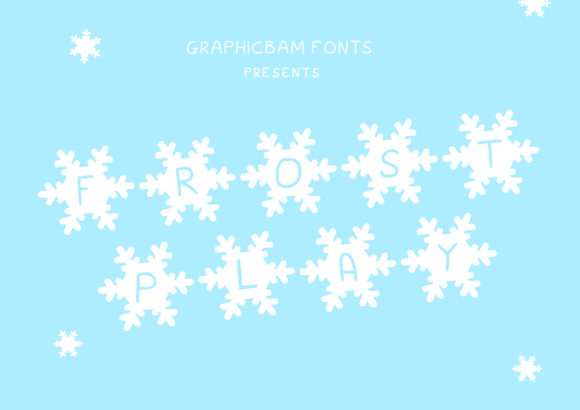
Frost Play Font: Elevate Your Winter Creations with this Stunning Decorative Font
As the winter season approaches, designers and creators are on the lookout for fonts that can add a touch of magic to their projects. If you’re searching for a font that can instantly evoke the feeling of frosty mornings and snowflakes gently falling, look no further than the Frost Play Font. This gorgeous decorative font is specifically designed to match the winter season, and its versatility makes it an incredible asset to your font library, regardless of the topic or project.
What Makes Frost Play Font So Special?
Frost Play Font is a unique and decorative font that boasts a range of features that make it perfect for winter-themed projects. Some of its key features include:
- Winter-inspired design: The font’s design is inspired by the frosty and icy textures of winter, making it perfect for projects that require a seasonal touch.
- Decorative and elegant: Frost Play Font is a decorative font that adds an touch of elegance to any project, making it ideal for use in titles, headings, and other design elements.
- Highly versatile: Despite its winter-inspired design, Frost Play Font is highly versatile and can be used in a wide range of projects, from Christmas cards to winter sports branding.
- Easy to read: Despite its decorative nature, Frost Play Font is easy to read, making it perfect for use in body text as well as headings.
Endless Possibilities: Uses for Frost Play Font
Frost Play Font is an incredibly versatile font that can be used in a wide range of projects, including:
- Winter-themed branding: Use Frost Play Font to create eye-catching branding for winter sports companies, ski resorts, and other businesses that want to evoke the feeling of winter.
- Christmas cards and invitations: Add a touch of festive magic to your Christmas cards and invitations with Frost Play Font.
- Social media graphics: Use Frost Play Font to create eye-catching social media graphics that will help your winter-themed posts stand out.
- Packaging design: Add a touch of winter wonder to your packaging design with Frost Play Font, perfect for seasonal products and promotions.
- Web design: Use Frost Play Font to create stunning winter-themed web designs that will engage and captivate your visitors.
Tips for Using Frost Play Font
To get the most out of Frost Play Font, here are some tips to keep in mind:
- Use it sparingly: While Frost Play Font is a beautiful font, it’s best used sparingly to avoid overwhelming the reader. Use it for headings and titles, and pair it with a simpler font for body text.
- Experiment with colors: Frost Play Font looks stunning in a range of colors, from icy blues and whites to rich reds and greens. Experiment with different colors to find the perfect look for your project.
- Pair it with other winter-themed elements: To create a cohesive look, pair Frost Play Font with other winter-themed elements, such as snowflakes, pinecones, and holly.
In conclusion, Frost Play Font is a stunning decorative font that’s perfect for winter-themed projects. Its unique design, versatility, and ease of use make it an incredible asset to your font library, regardless of the topic or project. Whether you’re a designer, marketer, or simply a creative looking for a new font to add to your collection, Frost Play Font is sure to impress.